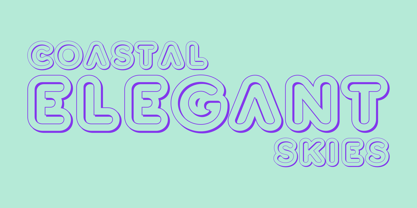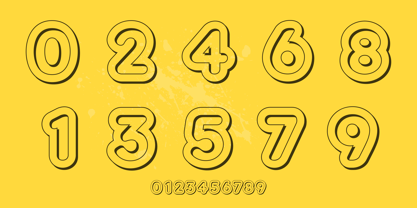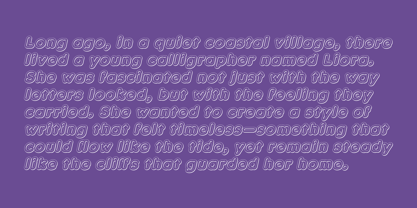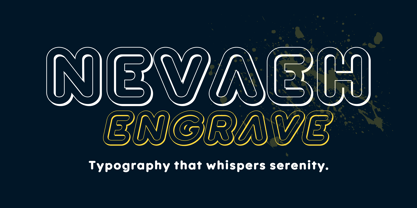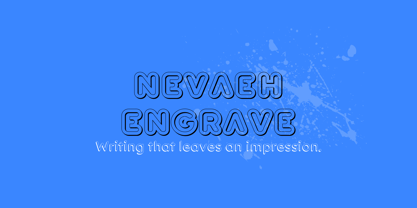
Nevaeh Engrave
by Kufic Studio
The Nevaeh Engrave Font Family was designed by Ahsan Ahmedzai and published by Kufic Studio. Nevaeh Engrave contains 2 styles and family package options. More about this family
Nevaeh Engrave is a refined variation of the Nevaeh type family, designed to embody permanence and sophistication. With its carved, etched-in aesthetic, the font carries the weight of tradition while maintaining Nevaeh’s signature elegance. Its crisp lines and subtle depth evoke the craftsmanship of stone inscriptions and fine metalwork, making it ideal for luxury branding, formal invitations, certificates, and editorial design. Part of the broader Nevaeh collection, Nevaeh Engrave transforms words into enduring marks—timeless, dignified, and unforgettable.